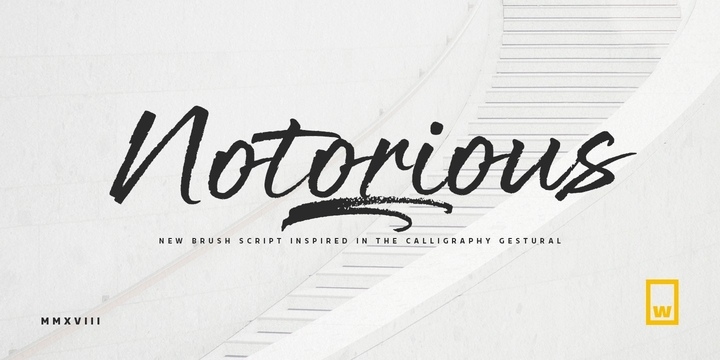
Notorious Font
Notorious Font is perfect for various design applications including movie posters, book covers, gaming logos, music album artwork, streetwear brand designs, urban fashion labels, graffiti-style graphics, hip-hop merchandise, tattoo designs, and rebellious brand identities. This versatile typeface excels in projects requiring a bold, edgy aesthetic that demands attention and conveys attitude.
What makes Notorious Font so exciting is its distinctive character that perfectly captures the essence of urban culture and street art. The font features sharp angles, bold strokes, and an unmistakable personality that screams confidence and rebellion. Its unique letterforms create an instant visual impact, making it an ideal choice for designers who want to break away from conventional typography and make a powerful statement. The font's ability to convey both strength and creativity makes it a standout choice for modern design projects.
The Notorious Font family includes multiple weights and styles to accommodate various design needs. You'll find regular, bold, italic, and condensed versions, each maintaining the font's signature rebellious character while offering flexibility for different applications. Some variants include additional decorative elements, swashes, and alternative character sets that enhance the font's versatility and creative potential.
Whether you're working on branding projects, promotional materials, or creative artwork, Notorious Font Free Download provides the perfect solution for designers seeking to inject personality and attitude into their work. This typeface transforms ordinary text into compelling visual elements that capture attention and leave lasting impressions. The font's contemporary appeal makes it particularly suitable for millennial and Gen-Z targeted campaigns, social media graphics, and digital marketing materials.
Notorious Font stands out in crowded design landscapes, offering designers the tools they need to create memorable, impactful designs. Its bold presence ensures that your message won't be ignored, while its carefully crafted letterforms maintain excellent readability across various sizes and applications. From large-scale billboards to detailed print work, this font delivers consistent performance and visual appeal that resonates with modern audiences seeking authentic, bold design solutions.